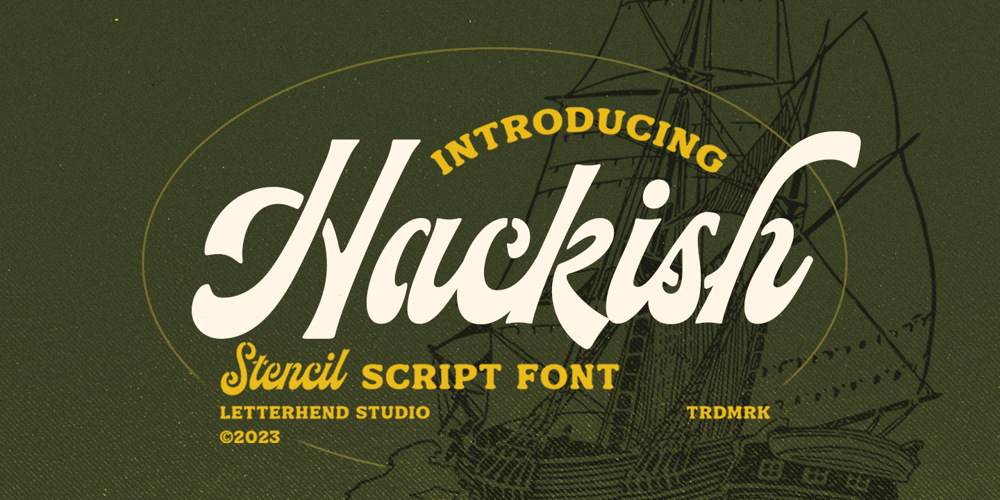
Hackish Script Font Family was designed by Hendry Juanda and published by Letterhend. Hackish Script contains 1 styles and family package options. Hackish is a captivating stencil script font that effortlessly infuses your designs with a touch of class and a dash of vintage charm. Its unique blend of elegance and ruggedness makes it the perfect choice for projects seeking a timeless and sophisticated appealFeatures : Uppercase & lowercase Numbers and punctuation Alternates & Ligatures Multilingual PUA encoded